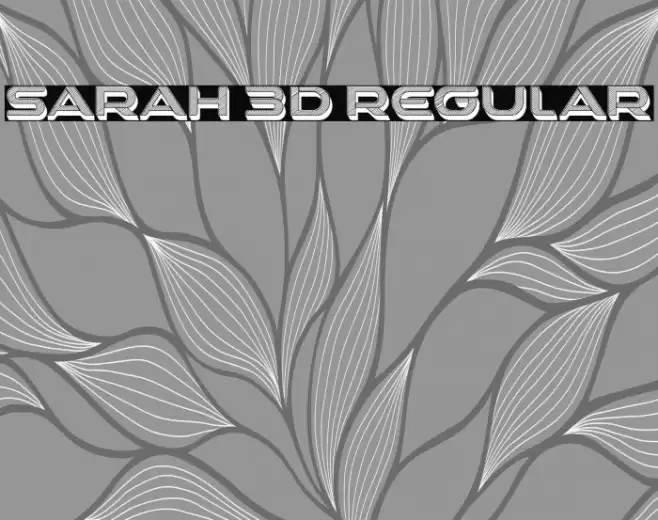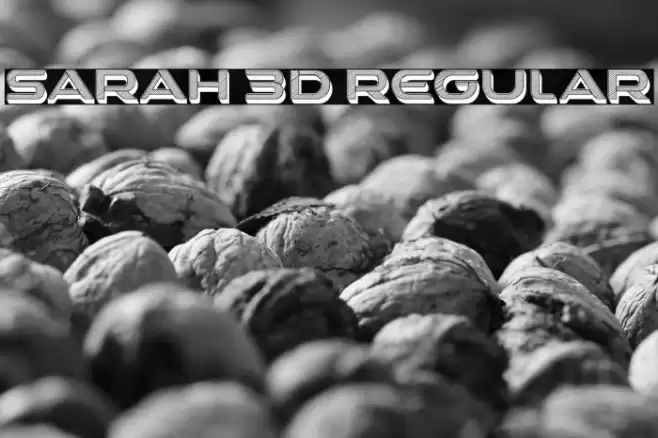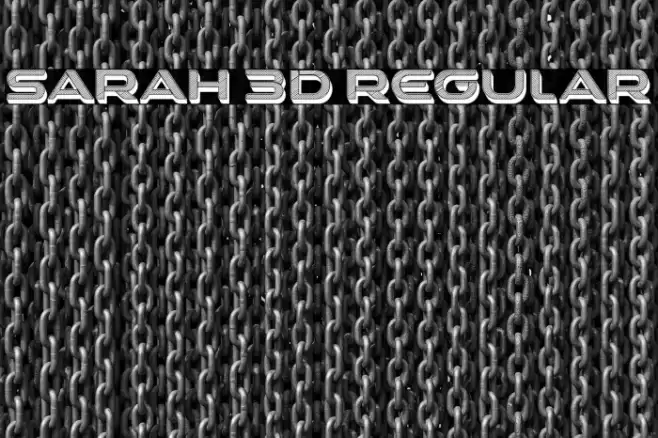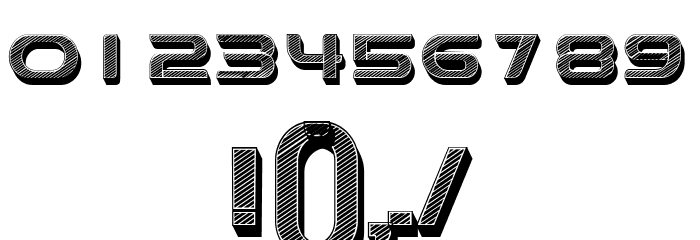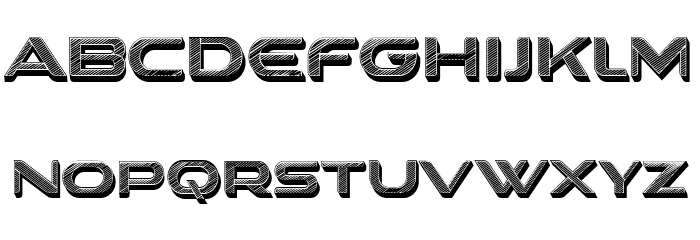
Sarah 3D Regular Font
Sarah 3D Regular Description
This font features a bold, three-dimensional design with a distinct shadow effect, giving it a dynamic and eye-catching appearance. The characters are constructed with a solid, geometric structure, and the diagonal lines within each letter add a sense of depth and texture. The uppercase and lowercase letters maintain a consistent style, while the numerals and special characters complement the overall aesthetic. This font is ideal for projects that require a strong visual impact, such as posters, headlines, and branding materials.
A bold, 3D font with geometric structure and shadow effects from Uncategorized fonts.
- Proposed Projects: Ideal for posters, headlines, branding, and any design needing a strong visual impact.